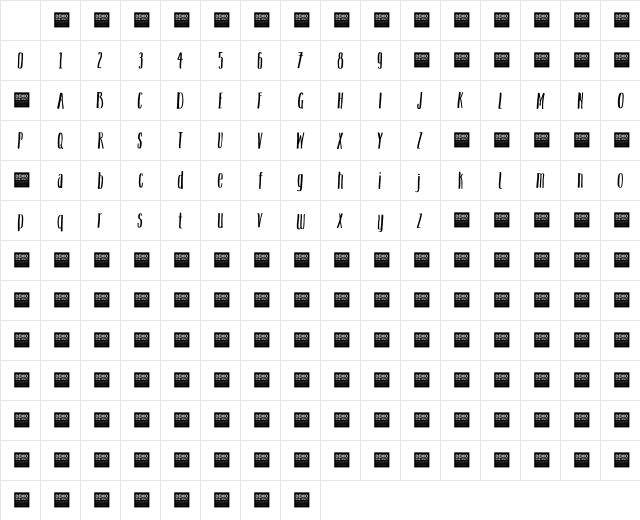
Spot Light - Demo is a composed and adaptable typeface that performs quietly and consistently across a wide range of design contexts. Its slender proportions lend an understated elegance to any composition.